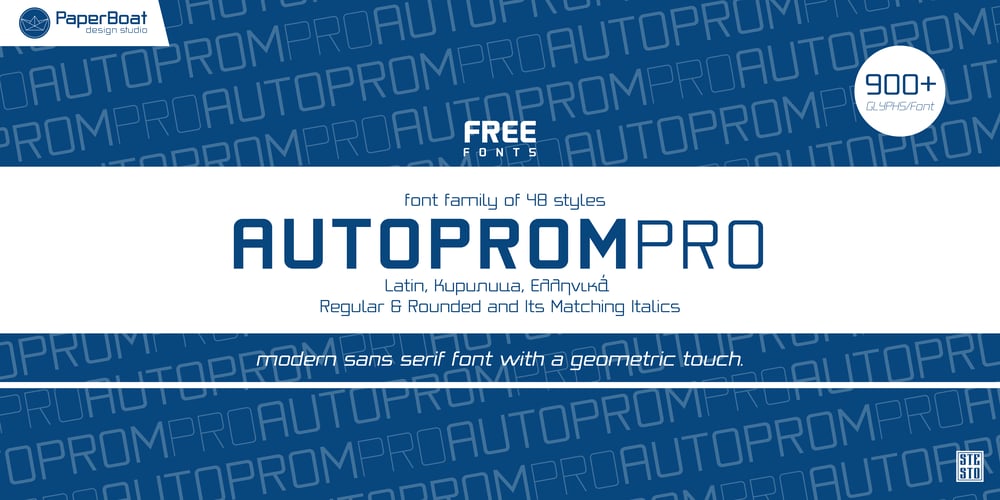
Autoprom Pro Font Family was designed by Stefan Stoychev and published by Stefan Stoychev. Autoprom Pro contains 48 styles and family package options. AutopromPro is a contemporary geometric sans-serif typeface that pays homage to the iconic design ethos of the Eastern European automobile industry during the communist era. Reflecting the sleek and utilitarian aesthetics of mid-century automotive engineering, this typeface exudes a sense of industrial prowess and efficiency.Crafted with clean lines and geometric shapes, AutopromPro offers a range of 12 weights in both regular and italic styles, providing designers with versatility and flexibility in their projects. Whether used for branding, editorial design, or digital interfaces, its precise and balanced letterforms ensure excellent readability across various mediums.In addition to its standard forms, AutopromPro also offers rounded variations, adding a touch of warmth and approachability to its design while maintaining its underlying geometric integrity. This rounded counterpart enhances the typeface’s adaptability, making it suitable for a wide array of applications, from headlines to body text.With its nod to the automotive heritage of Eastern Europe and its modern, functional design, AutopromPro embodies the spirit of innovation and endurance, making it a valuable asset for contemporary design projects seeking to evoke a sense of nostalgia and industrial sophistication.